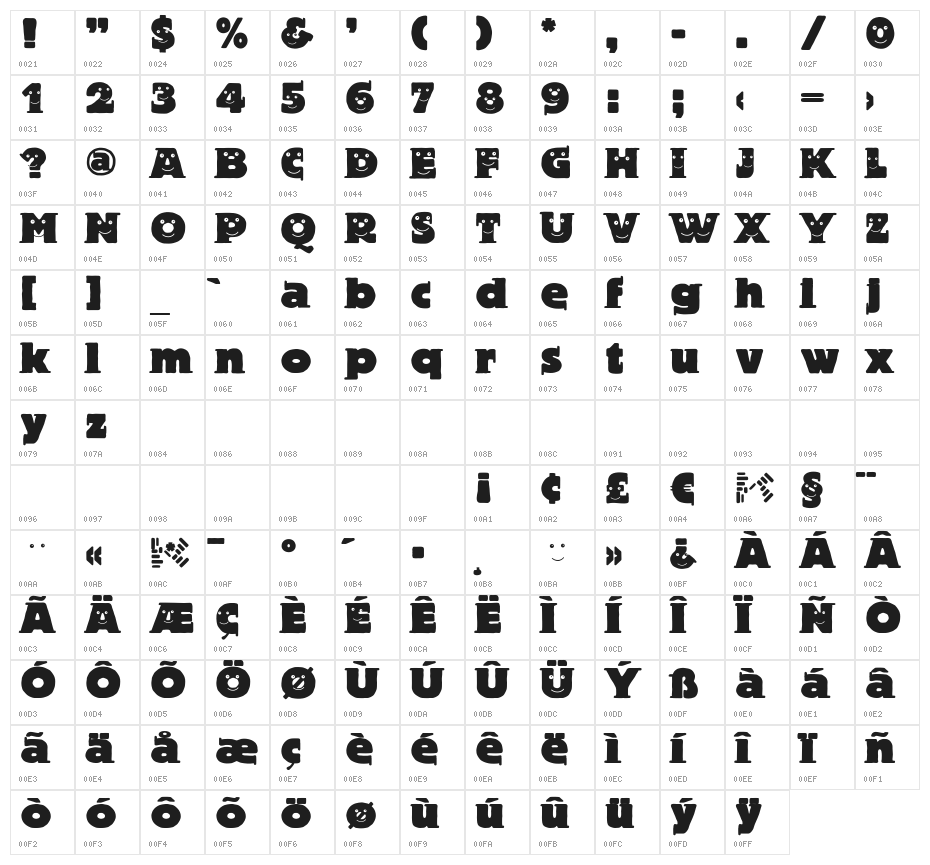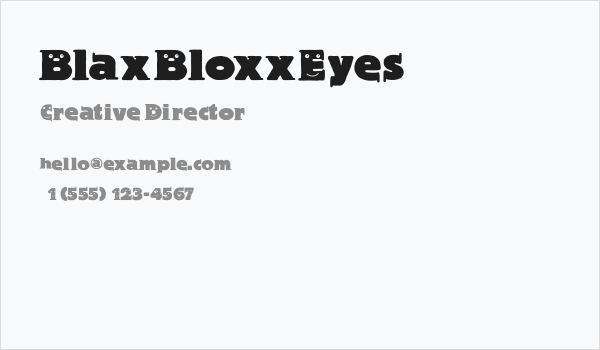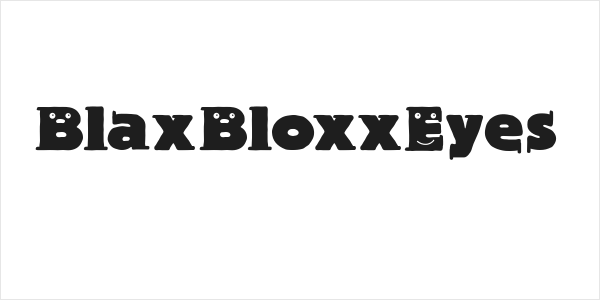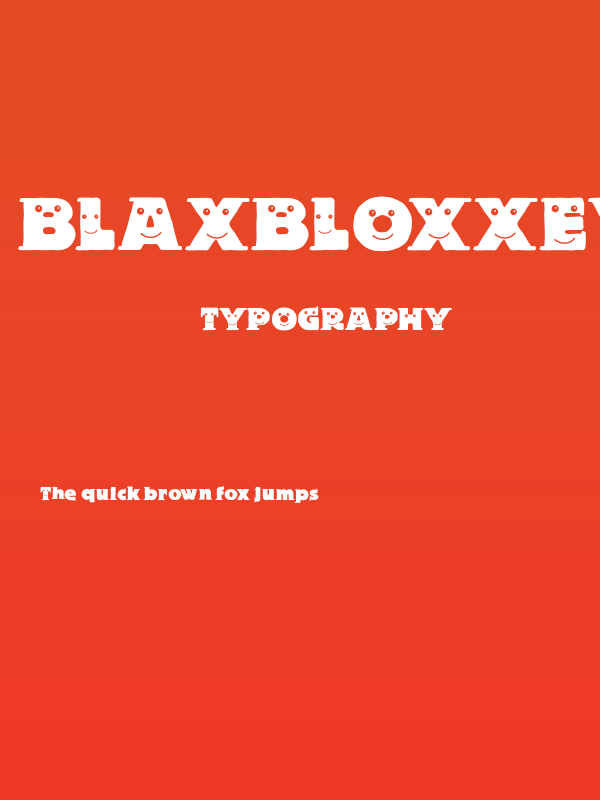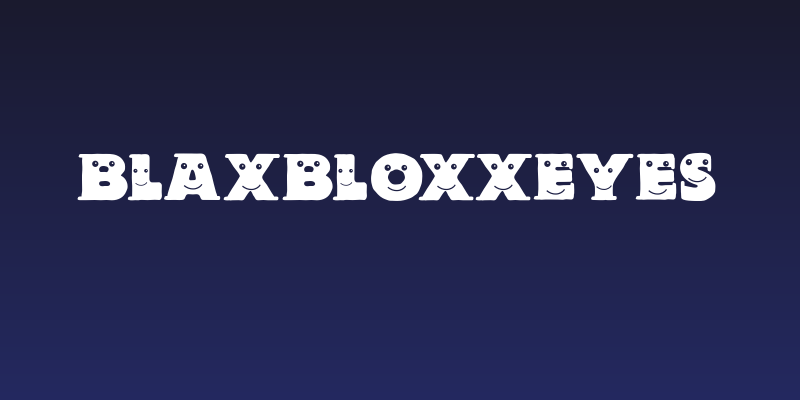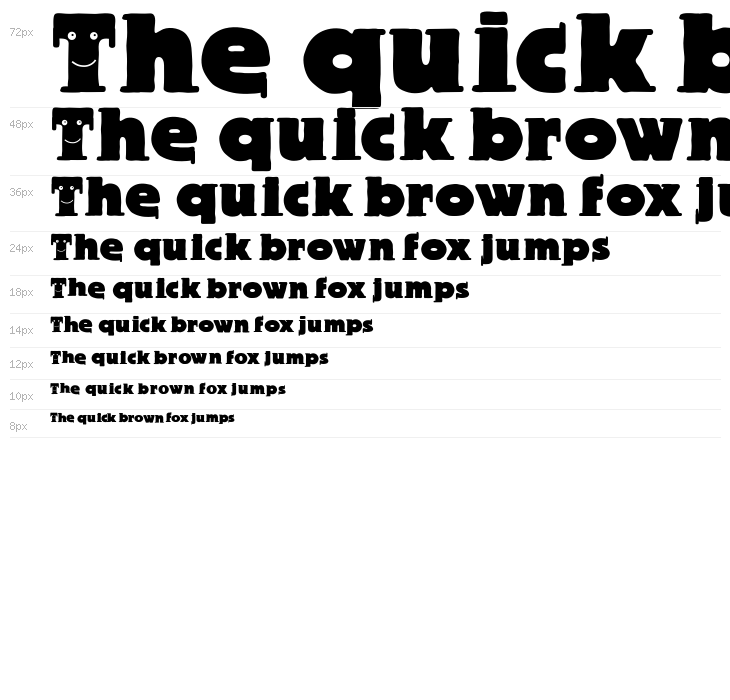
BlaxBloxxEyes Font
BlaxBloxxEyes Description
This playful and bold font features a unique design where each character is adorned with eye-like shapes, giving it a whimsical and animated appearance. The letters are thick and rounded, contributing to a friendly and approachable feel. The uppercase and lowercase letters maintain a consistent style, with the numbers and special characters also incorporating the eye motif. This font is perfect for projects that require a fun and engaging aesthetic, such as children's books, playful branding, or creative posters.
| Proposed Projects | Ideal for children's books, playful branding, creative posters, and any project needing a fun, engaging look. |